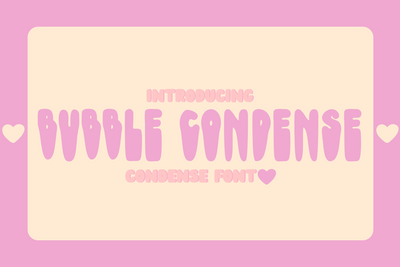
Bubble Condense Font
Bubble Condense Font is a fun, bold, and modern typeface that combines a bubbly aesthetic with a condensed structure, making it perfect for eye-catching designs. This font features smooth, rounded edges and a compact layout, ensuring a playful yet stylish look. Ideal for posters, logos, branding, social media graphics, product packaging, and more, Bubble Condense Font adds a unique charm to any project. Whether you're designing for kids' themes, retro-inspired graphics, or modern creative projects, this font delivers versatility and personality.
- Condensed Bubble Style: A perfect blend of playful and sleek typography.
- Bold & Versatile: Great for branding, advertising, headlines, and digital projects.
- Smooth Rounded Edges: Adds a friendly and approachable vibe.